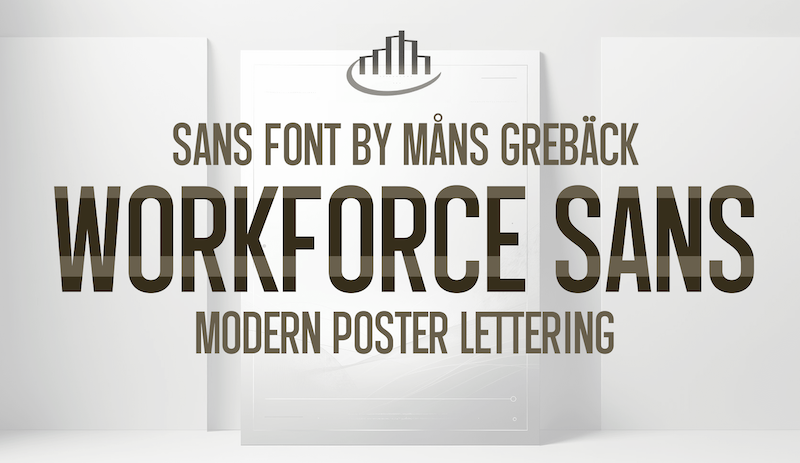
Preview and download Workforce Sans Font. Created by Måns Grebäck in Basic Sans serif styles with Free for personal use license.
NOTE: This font is for PERSONAL USE ONLY! To purchase a commercial license, visit: http://mn.sg/workforce Workforce Sans is a tall sans-serif typeface. This modern font is made for headlines and posters intended to leave a lasting impression. For questions, please visit www.mansgreback.com/faq |